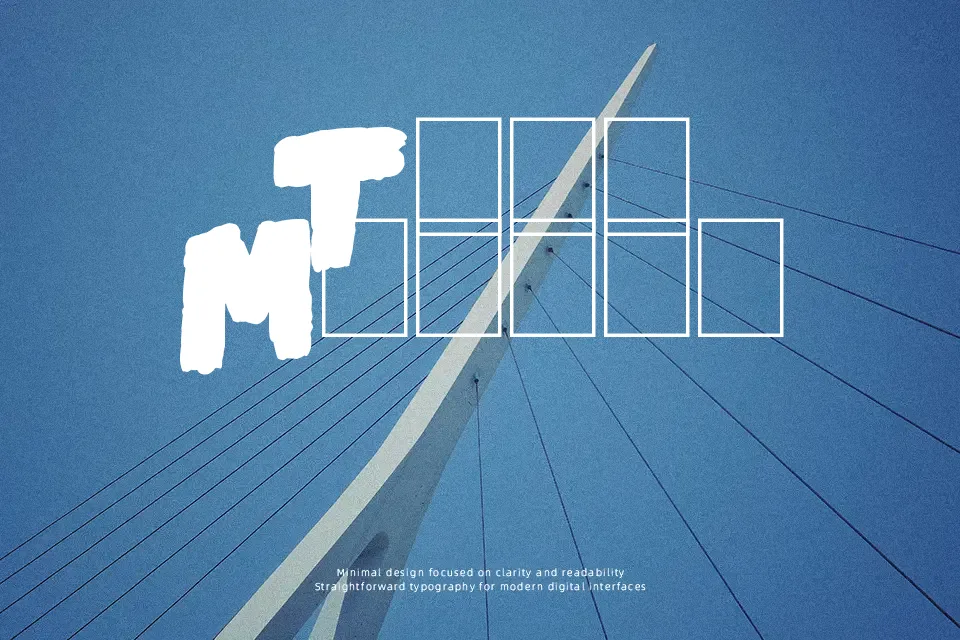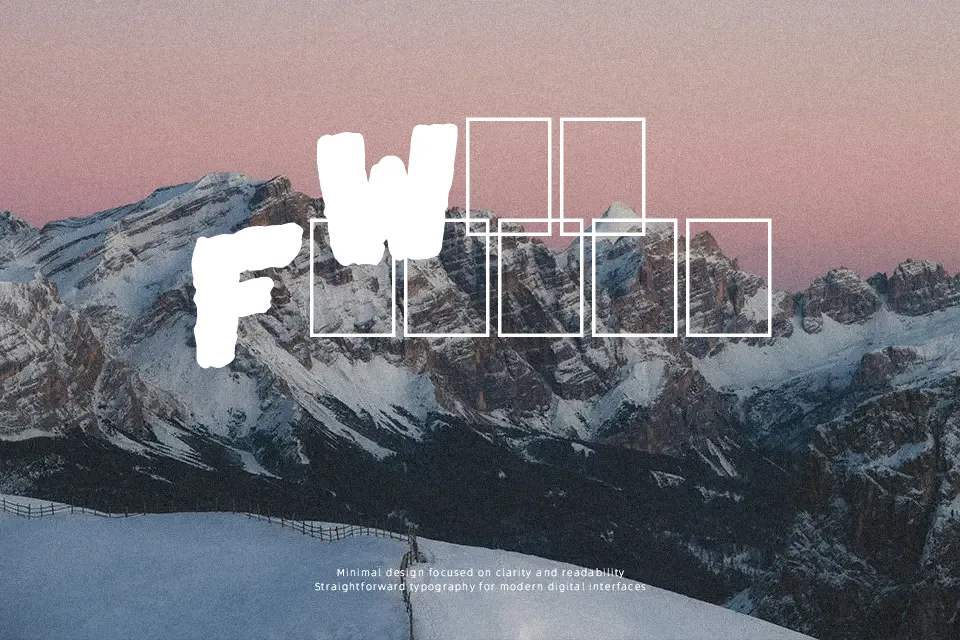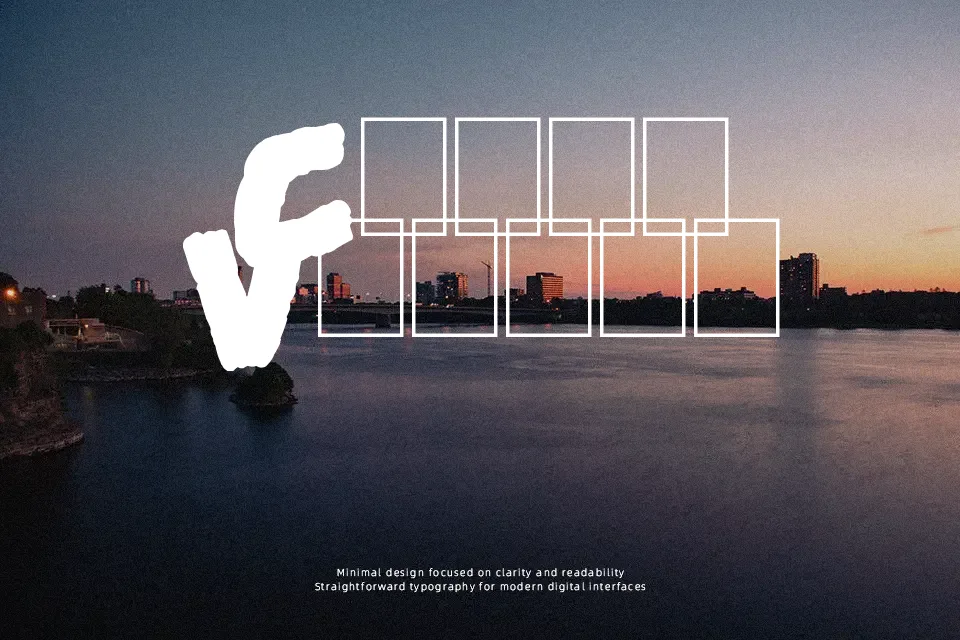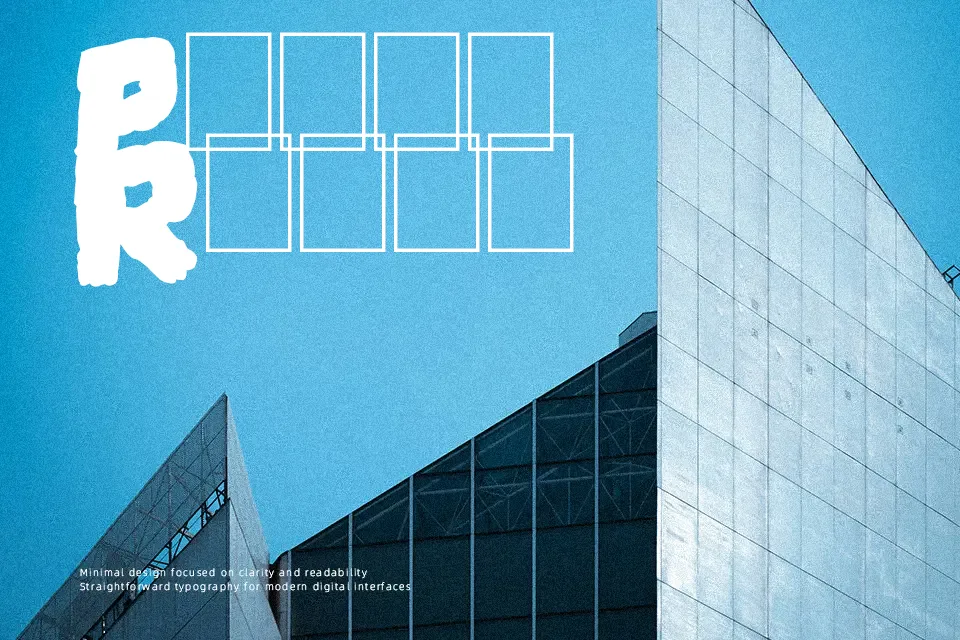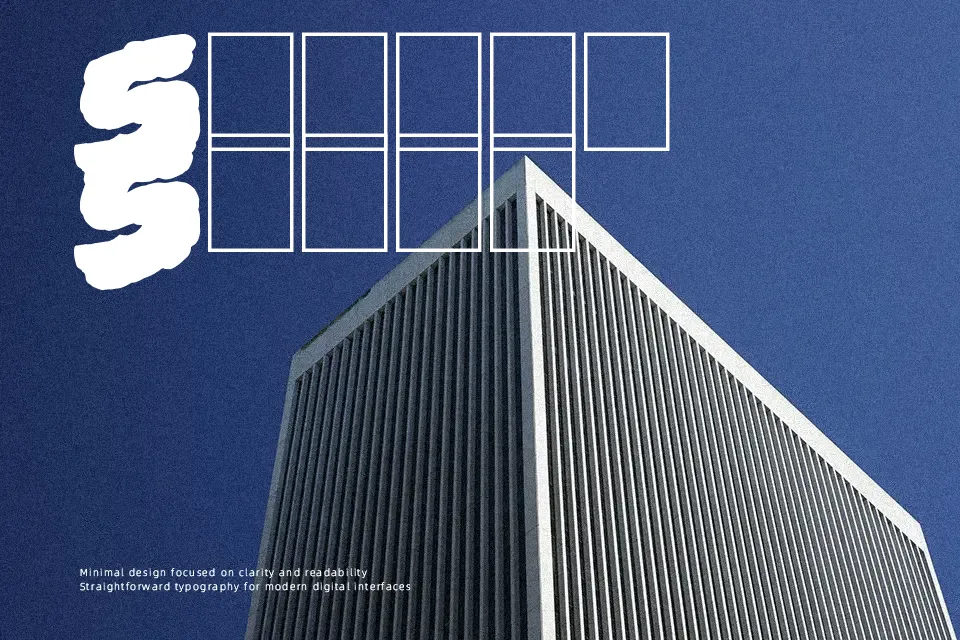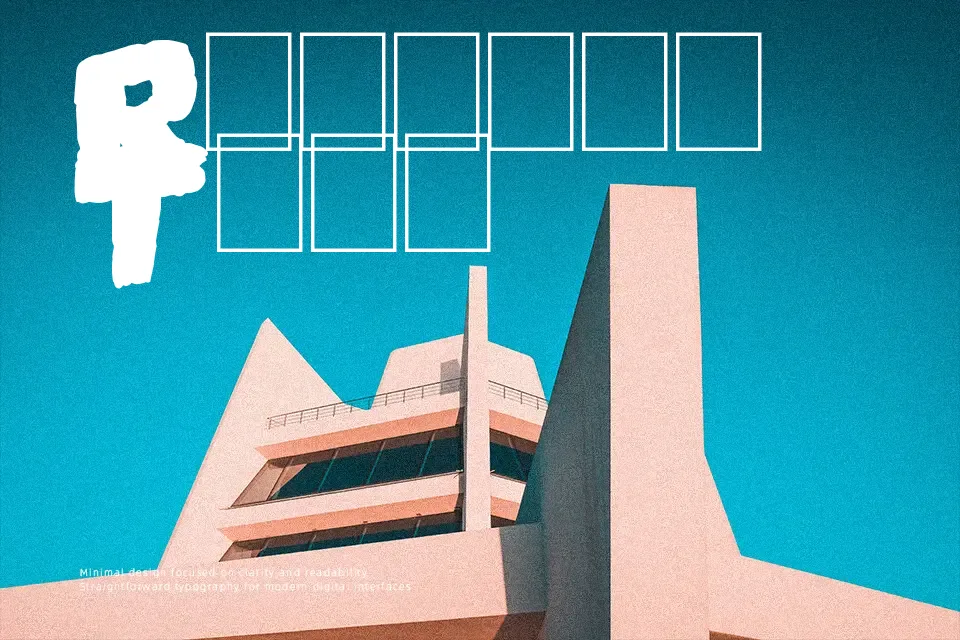
Swamp Black Font
Designed by imagex
Swamp Black Font is built around ultra-bold, bulbous strokes and asymmetrical contours that give every character a hand-drawn, animated presence. The letterforms exhibit minimal internal counter spaces, substantial horizontal weight, and intentionally snug spacing that binds adjacent glyphs together into punchy visual blocks. These proportional dynamics make the design exceptionally effective for arcade gaming titles, monster-themed merchandise, and horror-comic covers. However, the sheer density of the heavy outlines causes smaller captions to fill in quickly and lose distinction. In practical application, the typeface commands strong visual authority in large title settings but requires generous leading to avoid crowding surrounding elements.
Best For: comic book covers, Halloween event posters, arcade game logos, novelty merchandise packaging
Not Ideal For: extended body paragraphs, mobile interface text, formal business documents, small caption labels
Perfect for gaming, halloween, and headline, with a bold and cartoon style.